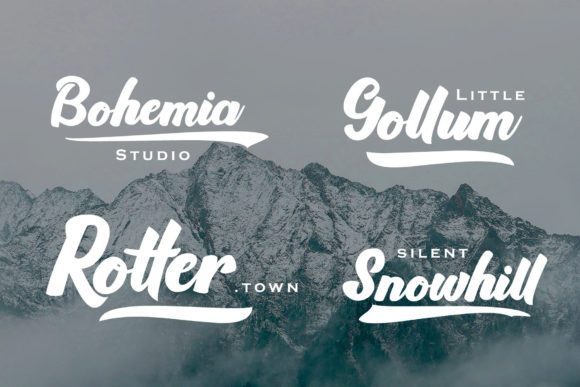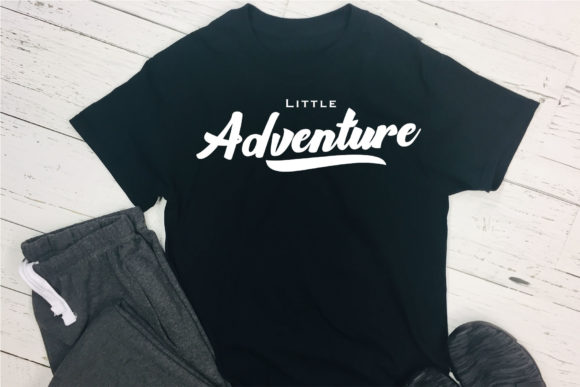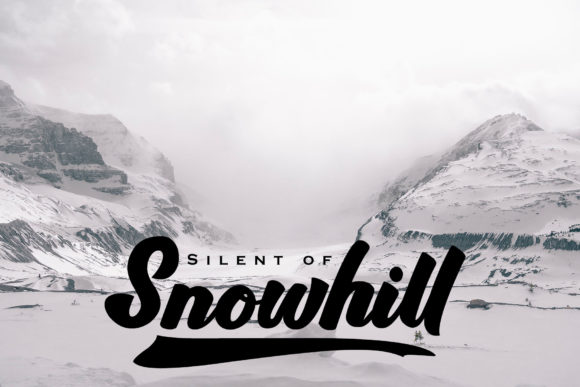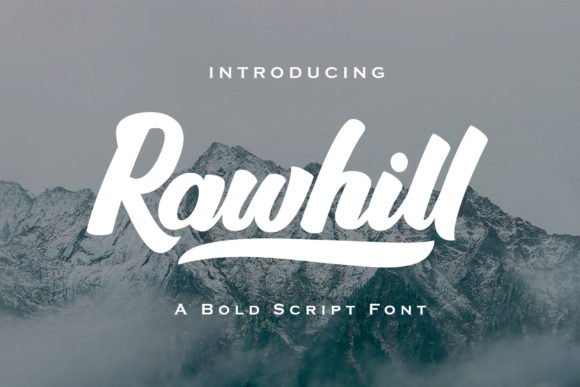
Introduction to Rawhill Font
Rawhill is a bold, clean and casual bold script font.
It comes with extra attractive swashes, alternative characters and ligatures that will make your design stand out .
Rawhill Font offers exceptional quality and versatility, making it a valuable addition to your design toolkit. Whether you’re creating for personal projects or commercial use, Rawhill Font delivers professional results.